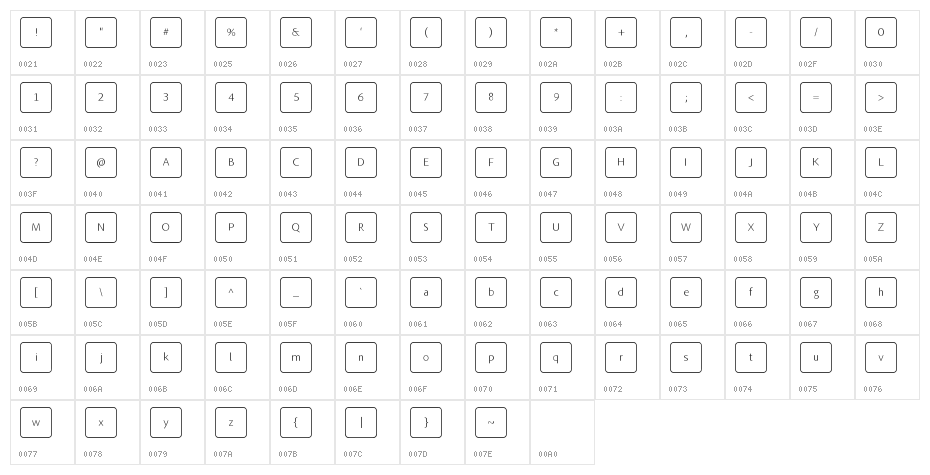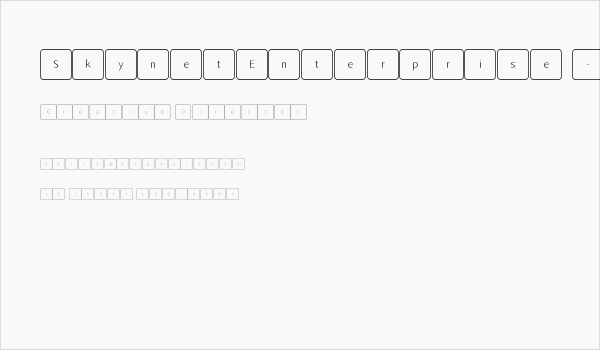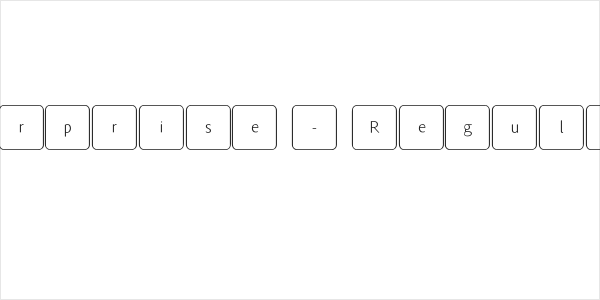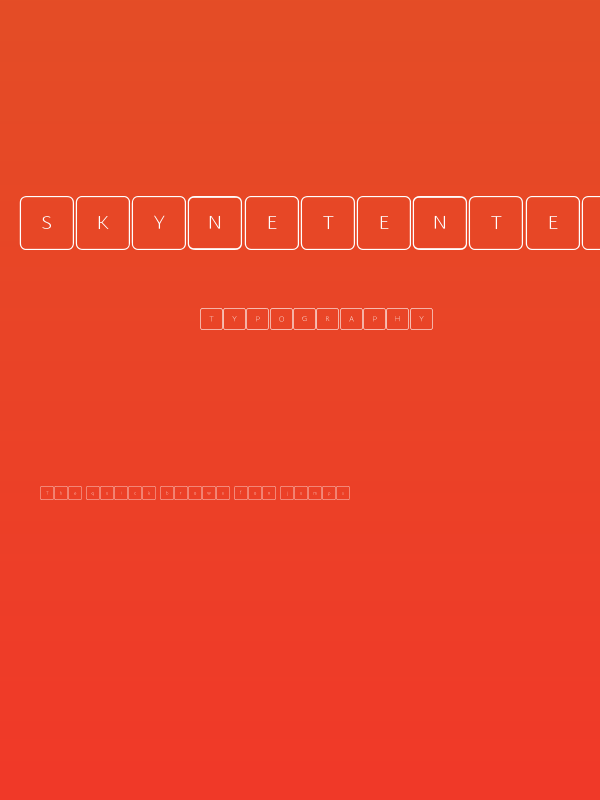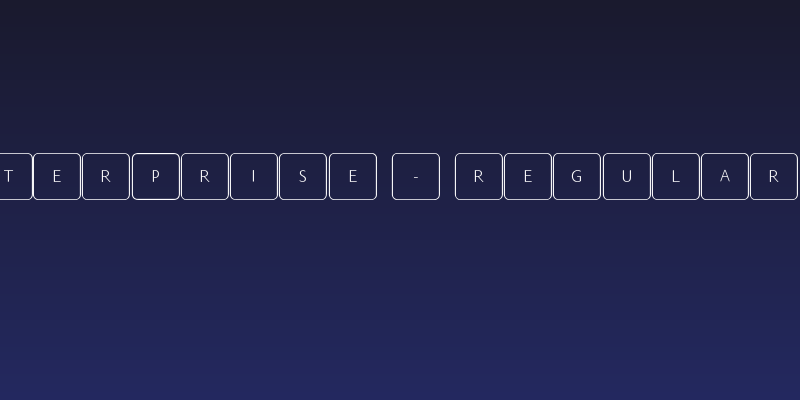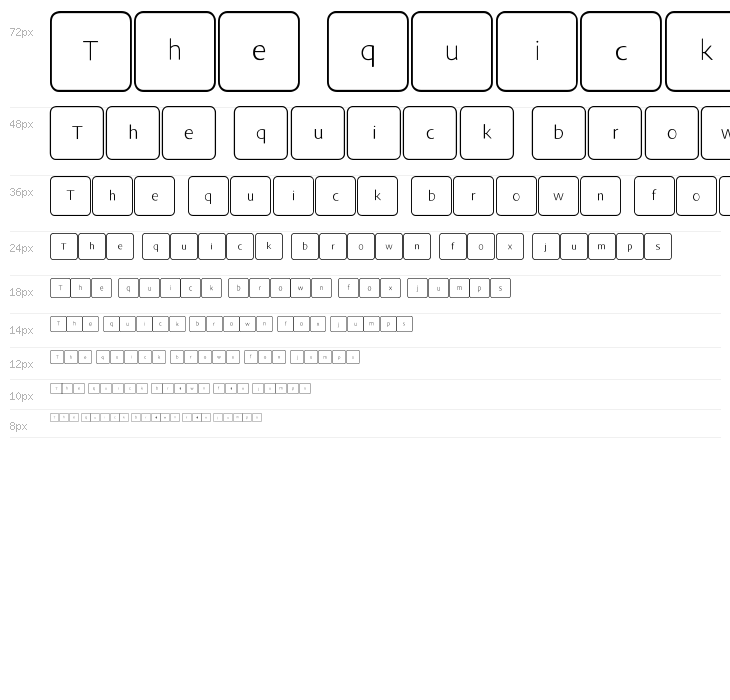
Skynet.Enterprise - Regular Keyboard Font
Skynet.Enterprise - Regular Keyboard Description
This font features a clean and modern design, characterized by its geometric shapes and uniform stroke width. The characters are enclosed in rounded rectangles, giving it a distinct keyboard-like appearance. The uppercase and lowercase letters maintain a consistent style, with a focus on readability and simplicity. The numerals and special characters are equally well-defined, ensuring clarity across all uses. This font's structured and minimalistic design makes it suitable for digital interfaces and applications where clarity and precision are paramount.
| Use Case | Headlines, User Interfaces, Digital Displays |
| Proposed Projects | Ideal for user interfaces, digital displays, tech-related branding, and educational software. |